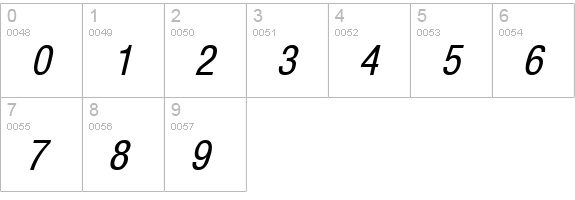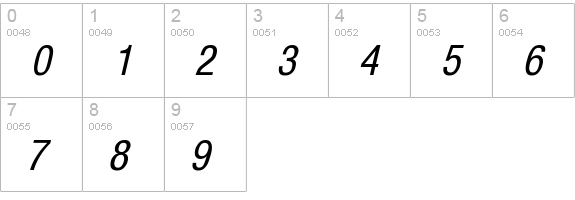
Arena Condensed Italic is a distinctive, condensed-width, italic variant in the Arena typeface family \xE2\x80\x94 well suited to design and typography projects.
Arena Condensed Italic is a sleek and modern font that exudes elegance and sophistication. Its italicized style adds a touch of flair and uniqueness to any design project. This versatile typeface is perfect for creating eye-catching headlines, stylish logos, or stylish branding materials. What makes Arena Condensed Italic even more appealing is that it is available for free download at FontsMarket.com. This means you can easily access this high-quality font without any cost, making it a valuable addition to your font library. Don't miss out on the opportunity to enhance your designs with the beauty and versatility of Arena Condensed Italic - download it today and elevate your creative projects to the next level.